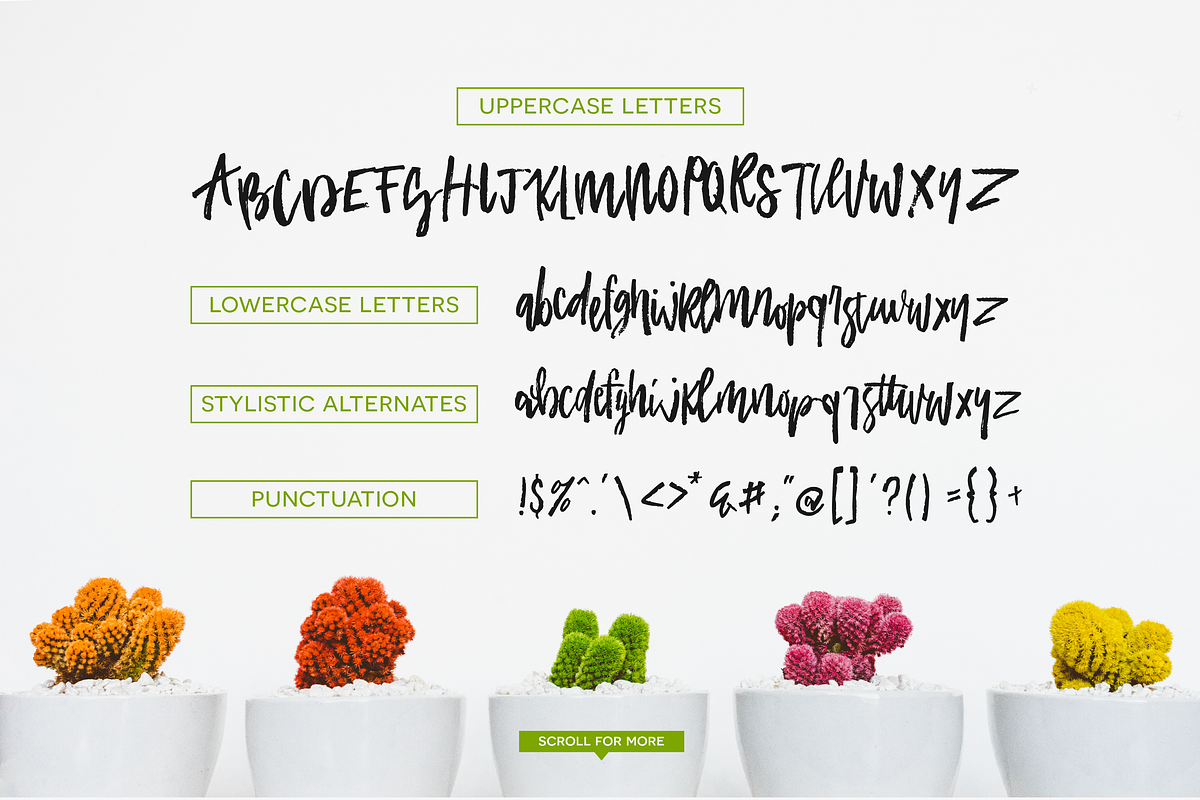
Academy House + Logos
ABOUT ACADEMY HOUSE :
Academy House is a fun-loving brush font with a playful baseline and a full set of bonus alternate characters! This pack also comes with 15 trendy logo templates that are sure to make your designs pop!Perfect for prints, invitations, greeting cards, logos, branding, and more!
• Over 100 Bonus Glyphs including International Language Support (ENGLISH, FRENCH, SPANISH, GERMAN, POLISH, ITALIAN, PORTUGUESE)